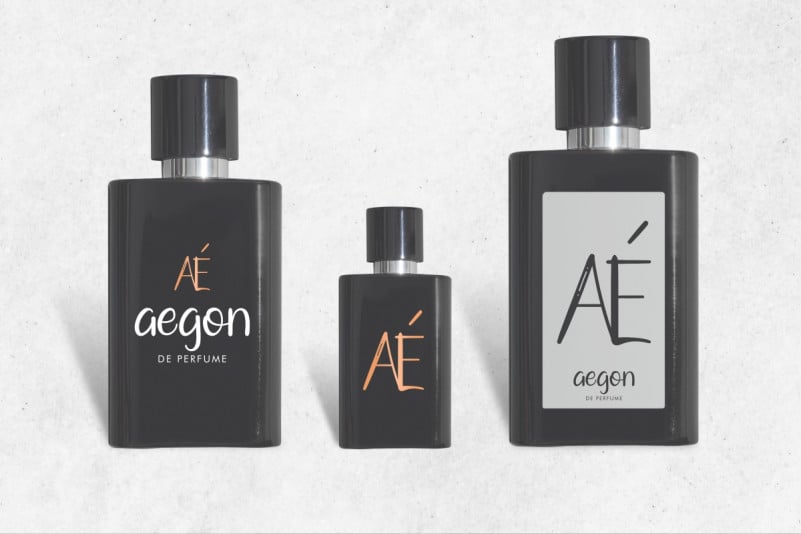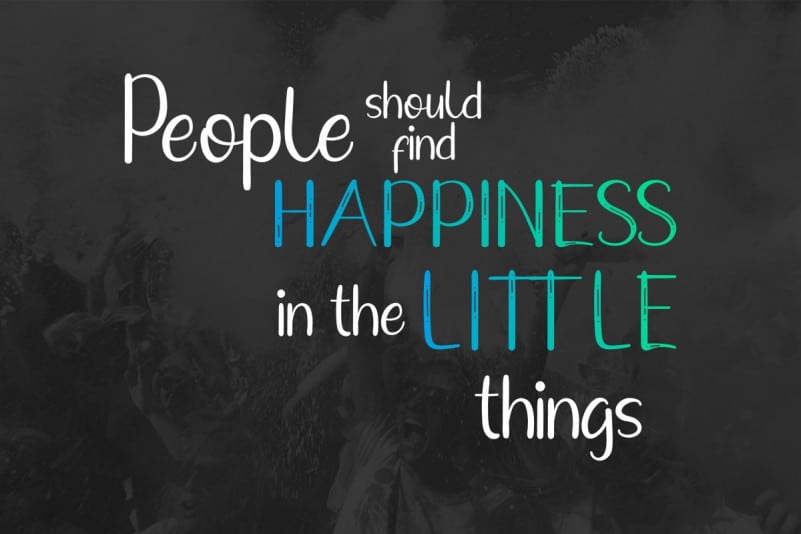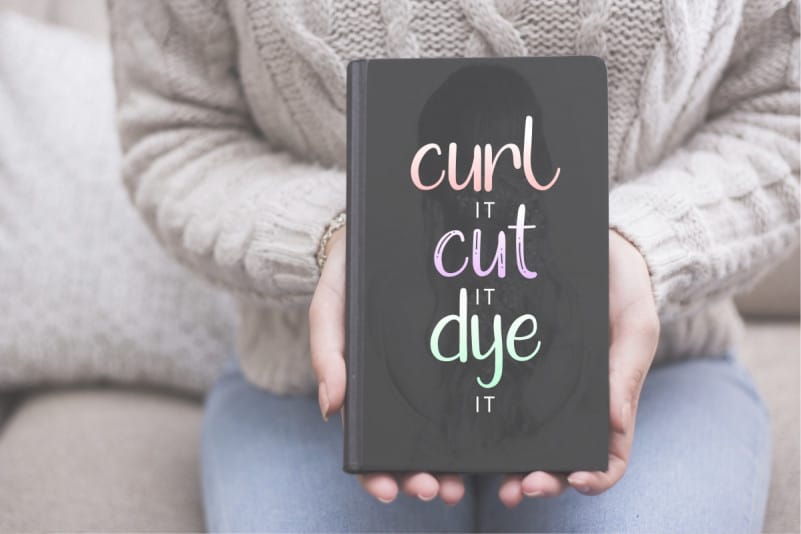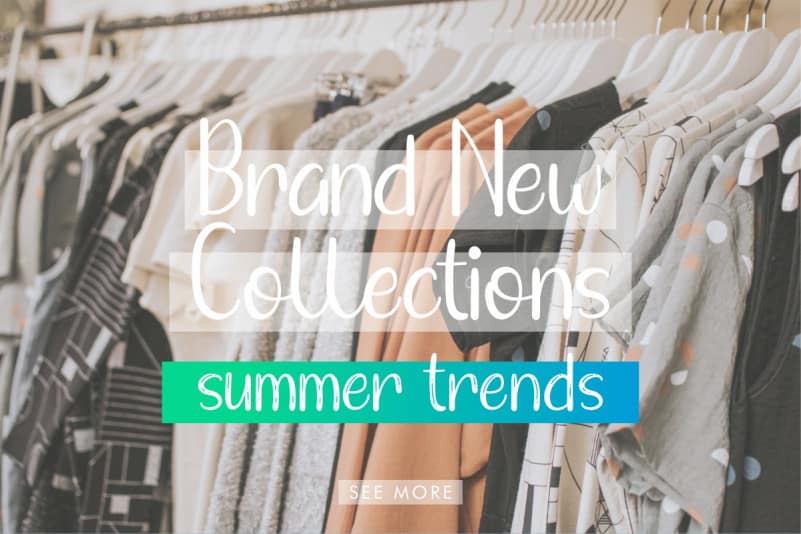
Fine Todey Display Font
Fine Todey Display Font is an exclusive handmade font with unique styles : comic, fun, cartoon, casual, stylish and classic calligraphic style. It has a great characters set, perfectly managed with well spaced and kerning.
Fine Todey Display Font will be great for any projects including : branding and logo (with extended license), stationery, business card, signage, flyer, brochure etc. Many industries will be match for this typeface: school, wedding, events, non profits foundation, florist, gardening, makeup artist, travel, hotel, musician etc